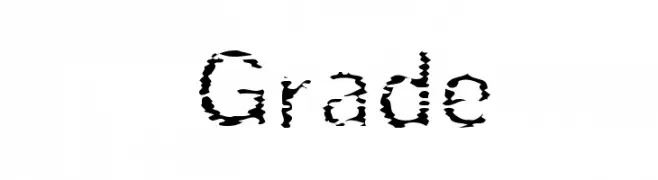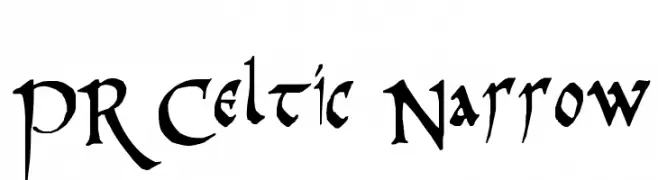
( Fonts by Peter Rempel - www.prfonts.com )
A narrow, angular font with a Celtic-inspired, decorative style.
( Fonts by Dave Kellam - Brian Stuparyk - www.eightface.com )
A distressed, eroded font with a rugged, vintage aesthetic.
( Fonts by Dave Kellam - Brian Stuparyk - www.eightface.com )
A bold, chaotic, and textured font with a graffiti-like style.